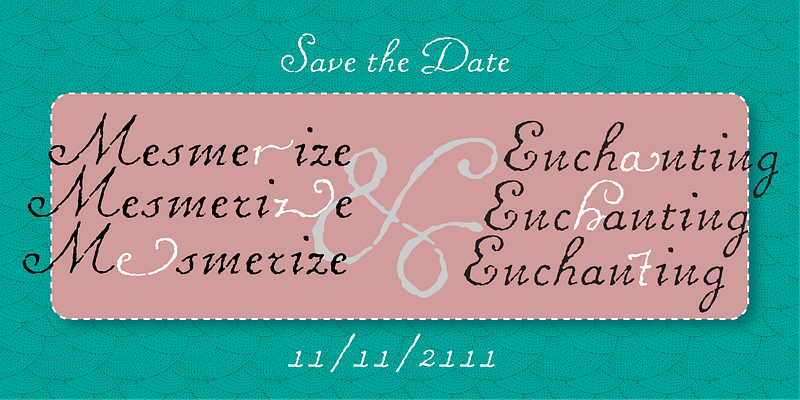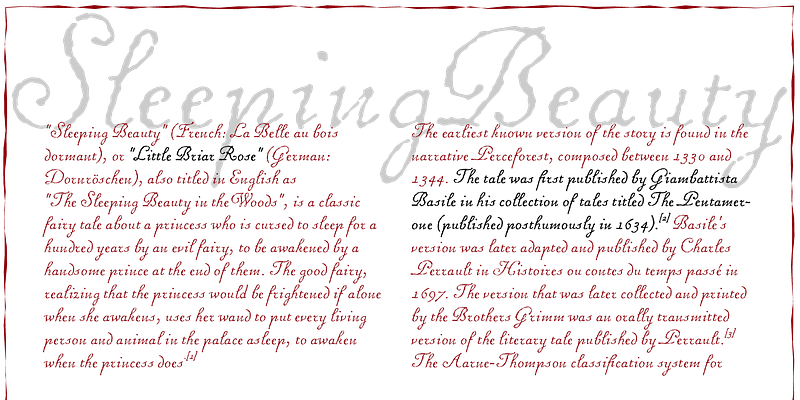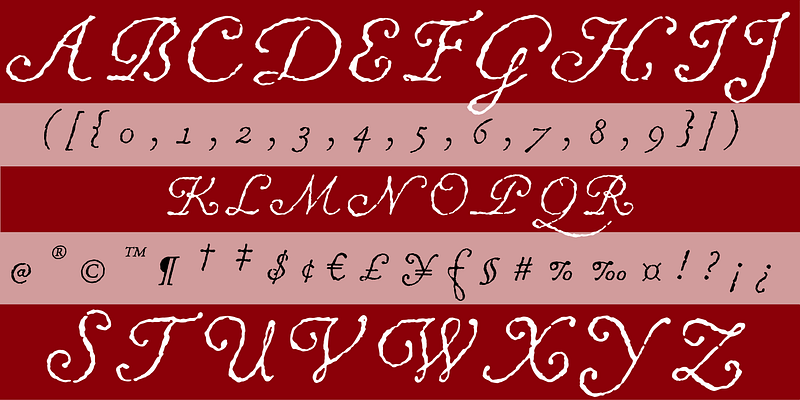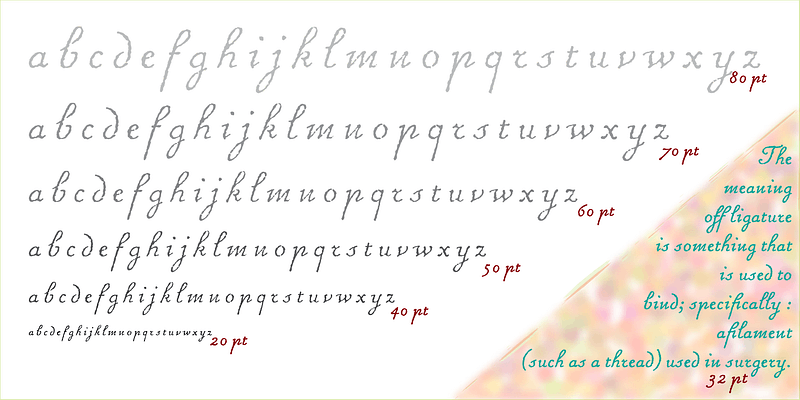
An old book found at a Paris bouquiniste contained samples of the typeface “Caractère de finance,” a bâtarde design by 18th century typefounder Pierre Simon Fournier. Rather than revive the type, Kanna Aoki decided to reinvent it, using a felt pen to achieve a rustic, handwritten quality, departing from the 18th century model as she saw fit. MVB Chanson d’Amour conveys a soulful elegance that stops short of the ostentatious, overwrought found in many formal scripts. It is lovely and sweet, but never saccharine.